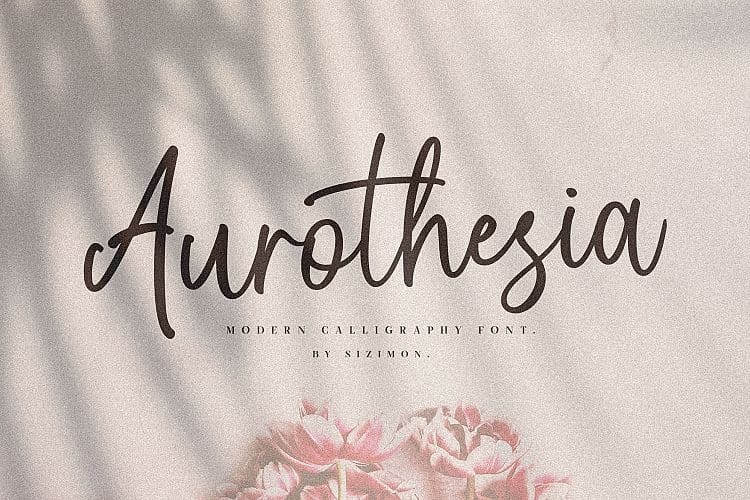
Aurotheisa Script Font
Aurotheisa Script Font is a beautiful Calligraphy font suitable for Signature, Branding, Logos, Wedding invitations, or other romantic projects. To create real hand lettered effect. It is a script font from the designer sizimon.
It is free-flowing, feminine, fashionable and friendly. Aurotheisa is perfect for fashion, e-commerce brands, trend blogs, or any business that wants to appear classy and chic.